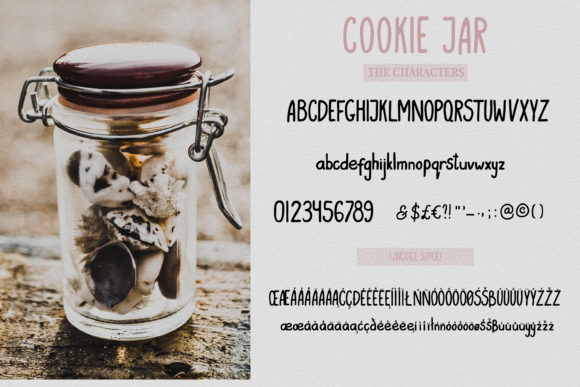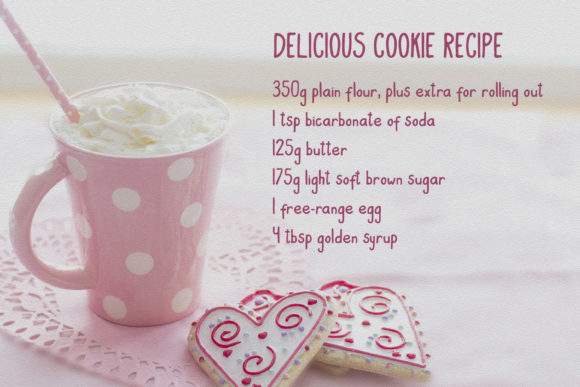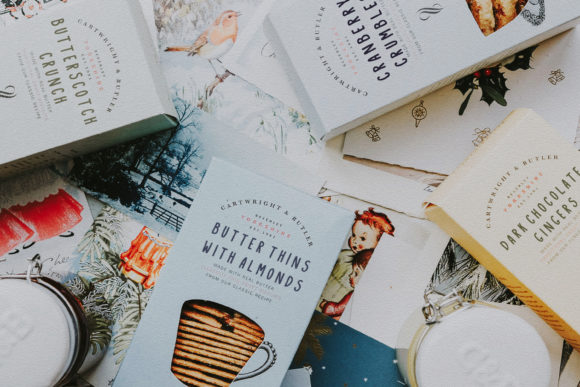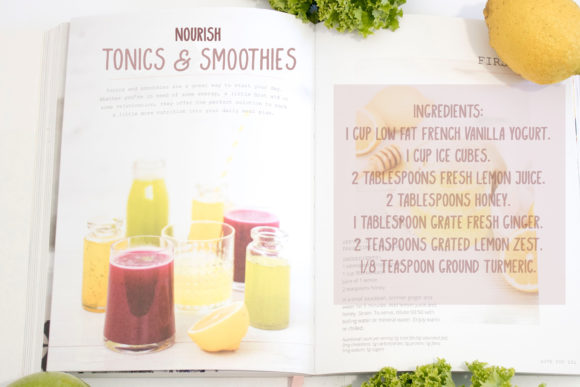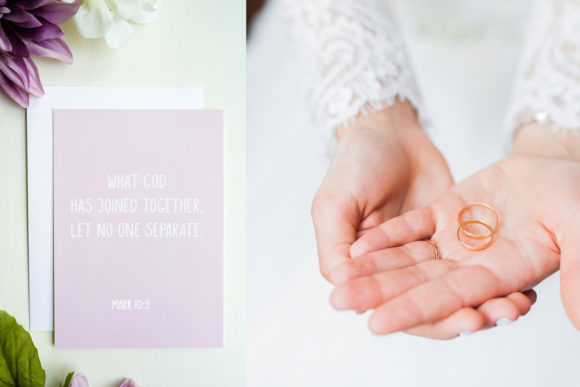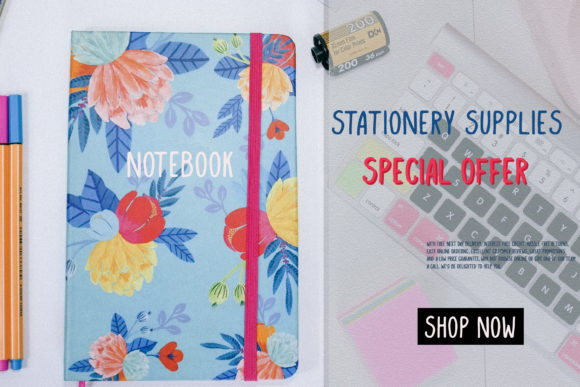
The Cookie Jar Font: A Handcrafted Gem for Your Designs
I’ll never forget the time I was working on a project for a client who wanted a custom branding package that screamed “homemade with love.” I spent hours scouring font libraries, but nothing seemed quite right – until I stumbled upon the Cookie Jar Font. Its charming, handcrafted aesthetic instantly transported me to a cozy kitchen filled with freshly baked treats. In that moment, I knew I’d found the perfect fit.
What I Love About Cookie Jar Font
- ✨ Carefully handcrafted design gives it a unique, authentic style
- ✅ Perfect for adding a personal touch to any design, from branding to invitations
- 💕 Works beautifully for both digital and print projects
- 🎨 Highly versatile and can be used in a variety of creative contexts
While Cookie Jar Font is an amazing addition to any design project, there are a few things to keep in mind:
- ⚠️ Some letters may appear a bit inconsistent in size or spacing, which can actually add to its charm but might require manual adjustments for certain projects
- 🤔 Limited availability of special characters or extended language support
Imagine a designer who grew up in a family of bakers, surrounded by the warmth and love of freshly baked cookies. This designer’s task was to create a font that captured the essence of homemade treats – and thus, Cookie Jar Font was born. With its handcrafted look and feel, this font brings a touch of nostalgia and coziness to any design.
Q: What makes Cookie Jar Font unique?
A: Its carefully handcrafted design gives it a special, authentic style that’s hard to find in digital fonts.
Q: Does Cookie Jar Font support OpenType features?
A: Yes, Cookie Jar Font comes with OpenType features like ligatures and stylistic alternates, which can add a creative twist to your designs.
Q: Is Cookie Jar Font suitable for body text?
A: While Cookie Jar Font is stunning for headings and titles, it might not be the best choice for body text due to its decorative nature.